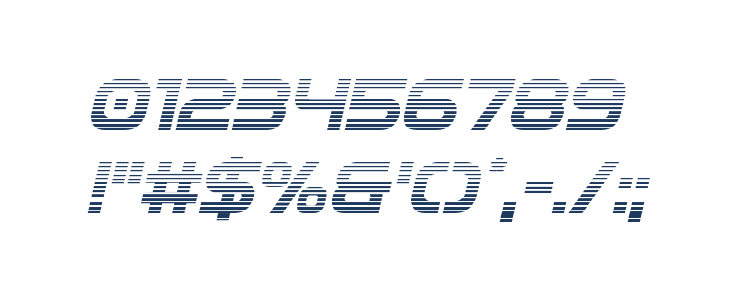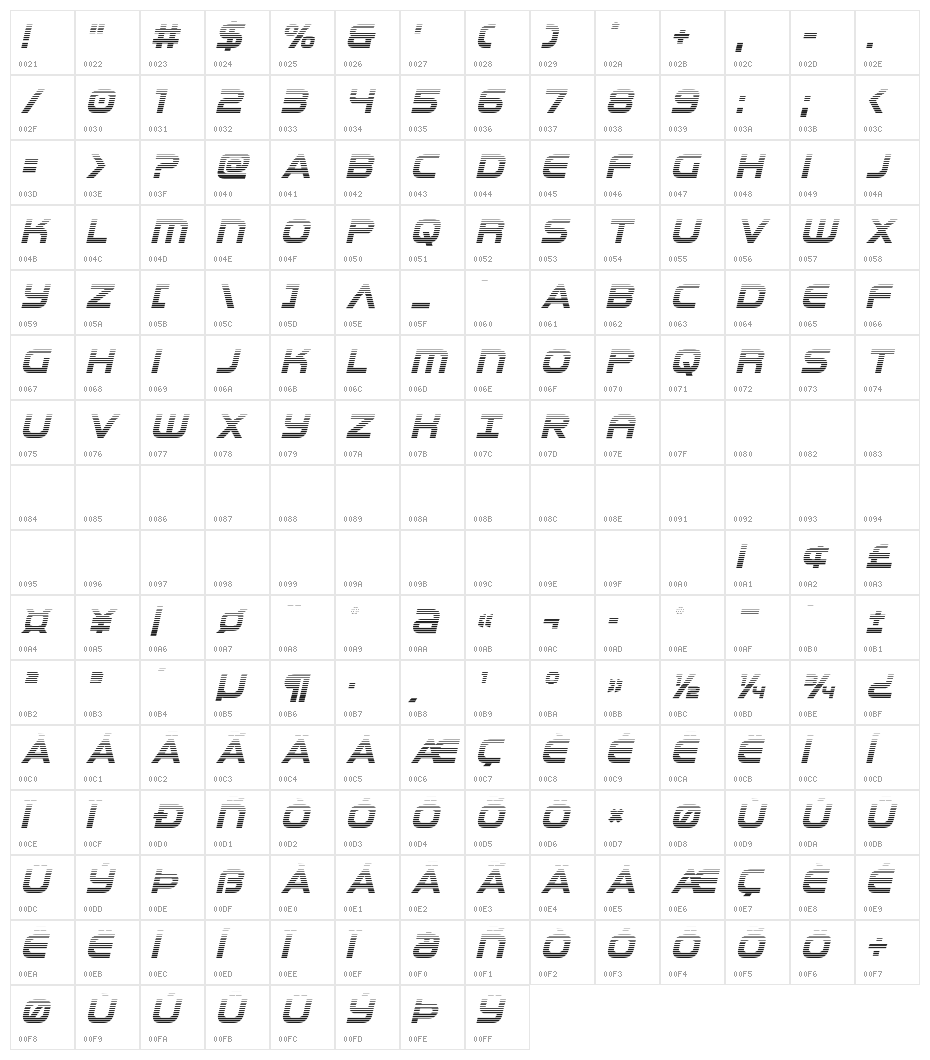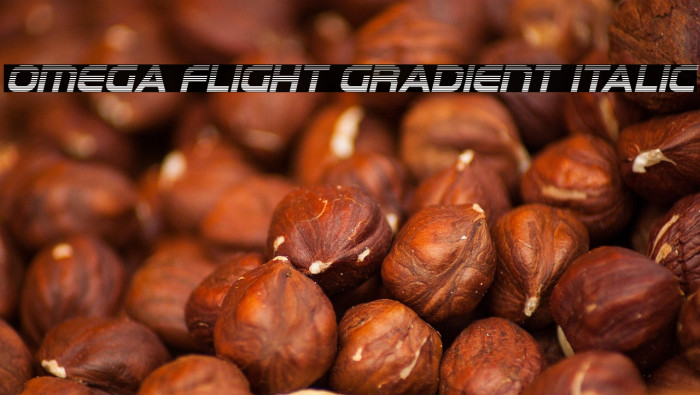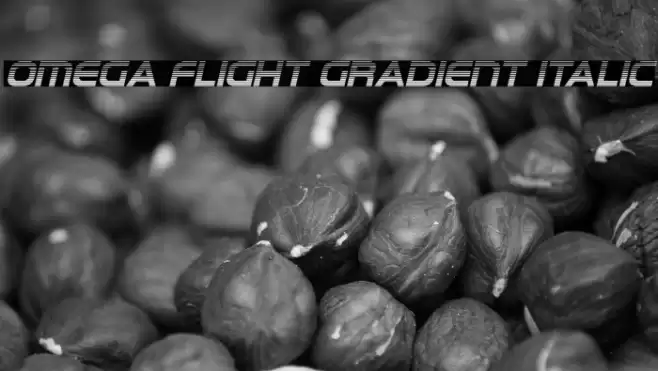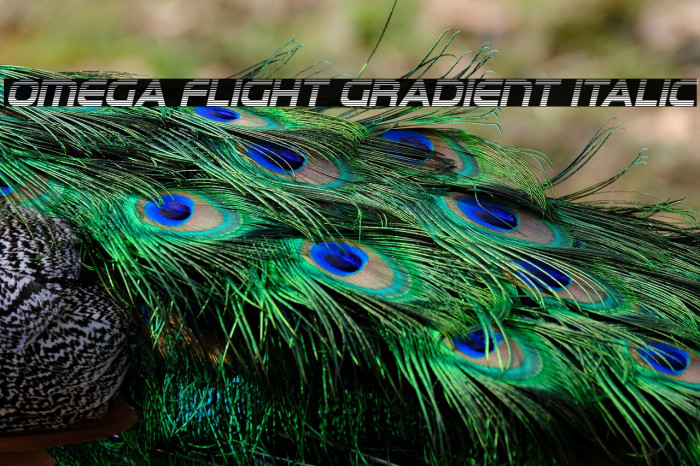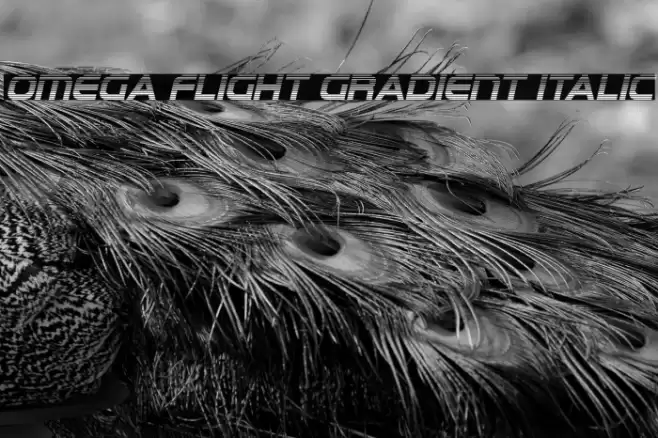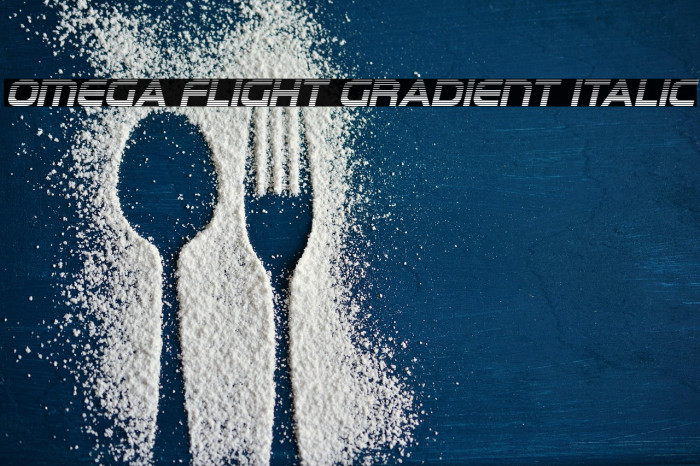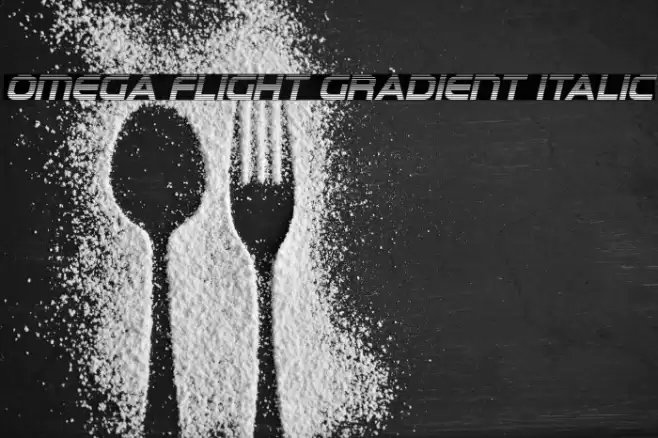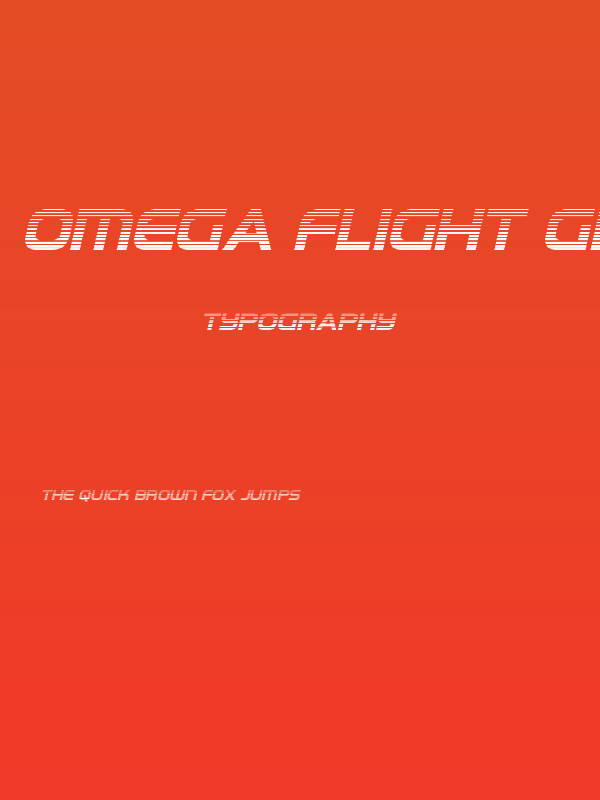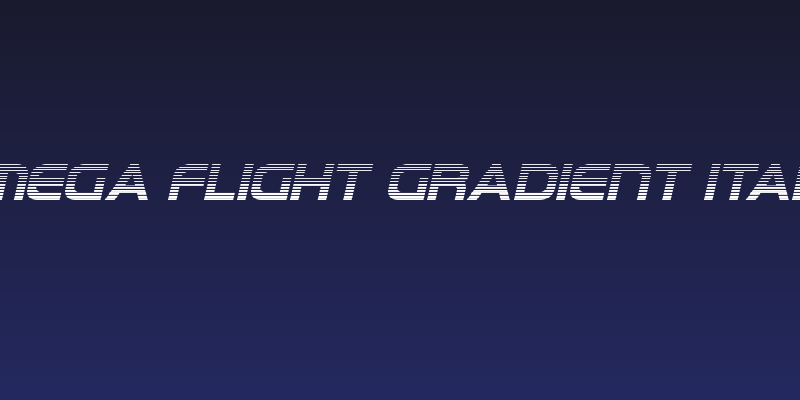
Omega Flight Gradient Italic Font
Omega Flight Gradient Italic Description
This font features a futuristic and dynamic design with a distinct gradient effect that gives the impression of motion. The italicized style adds a sense of speed and modernity. Each character is composed of horizontal lines that create a striped pattern, enhancing the visual interest and depth. The uppercase and lowercase letters maintain a consistent style, with sharp angles and clean lines. The numerals and special characters follow the same aesthetic, ensuring uniformity across all elements. This font is ideal for projects that require a bold and contemporary look.
| Proposed Projects | Ideal for sci-fi themed designs, technology branding, video game titles, and dynamic posters. |